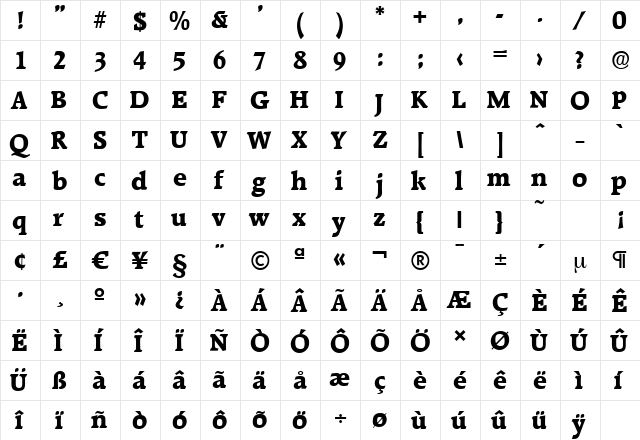
RaleighSerial-Xbold Regular
Design Context for RaleighSerial-Xbold Typeface
RaleighSerial-Xbold offers clean, dependable letterforms without strong stylistic allegiance, making it a practical choice for designers who need flexibility. The heavy weight commands attention and anchors typographic hierarchies.